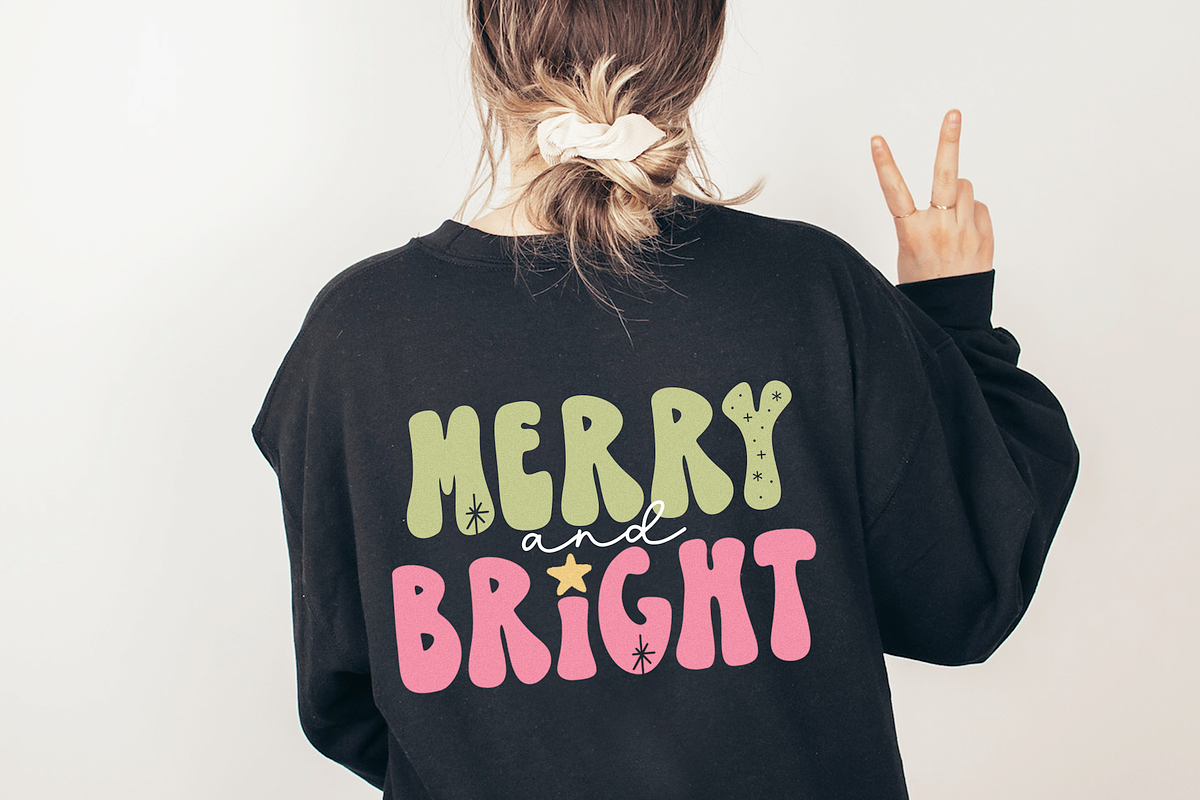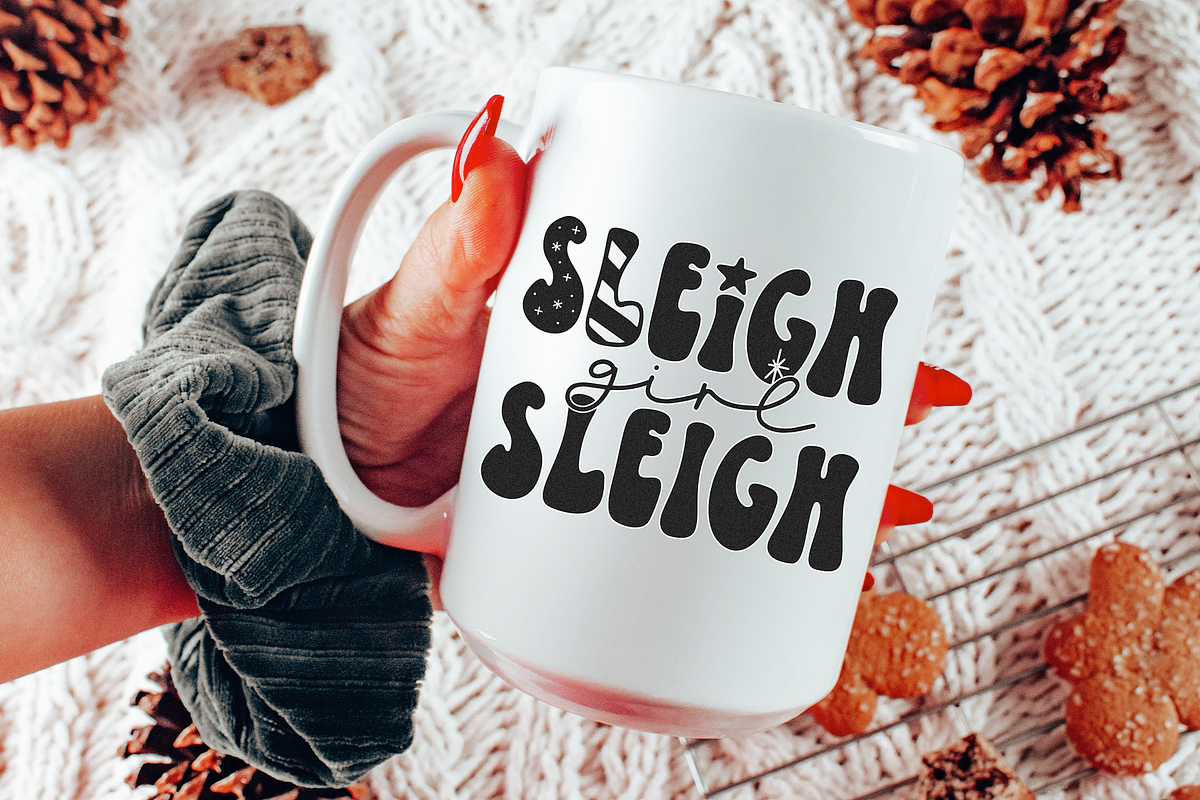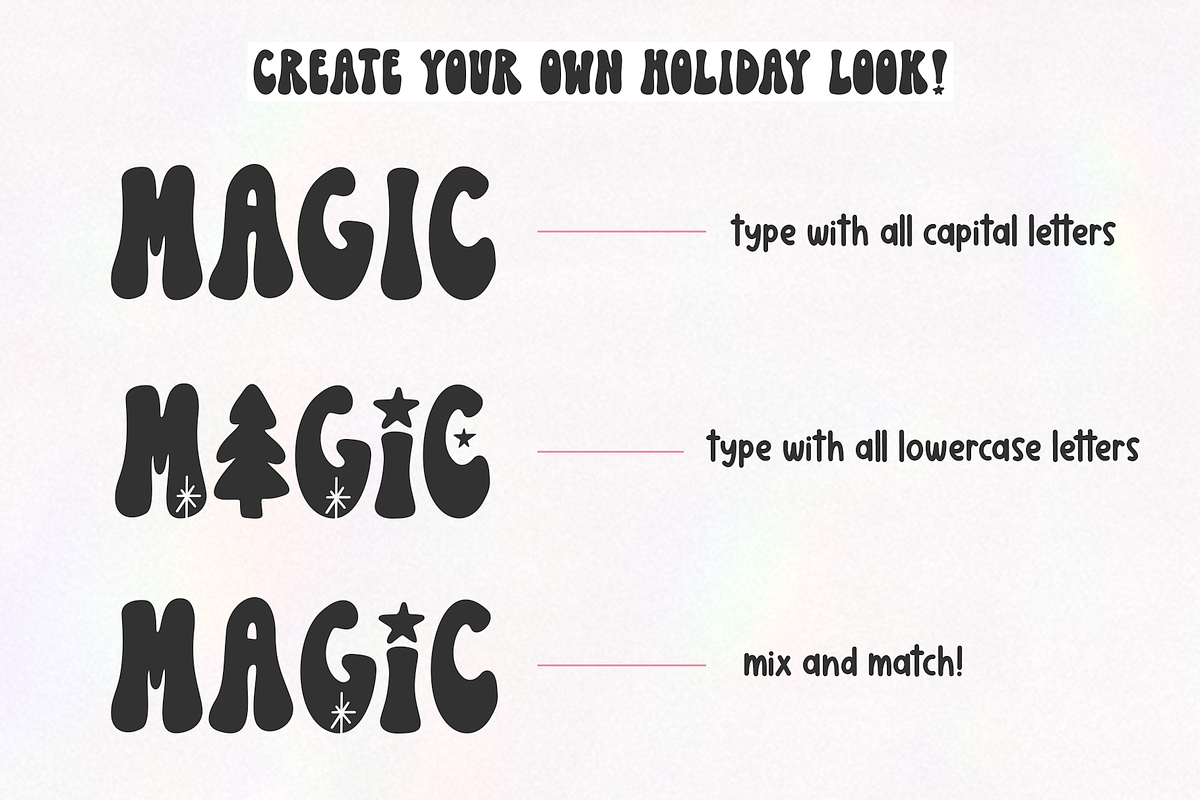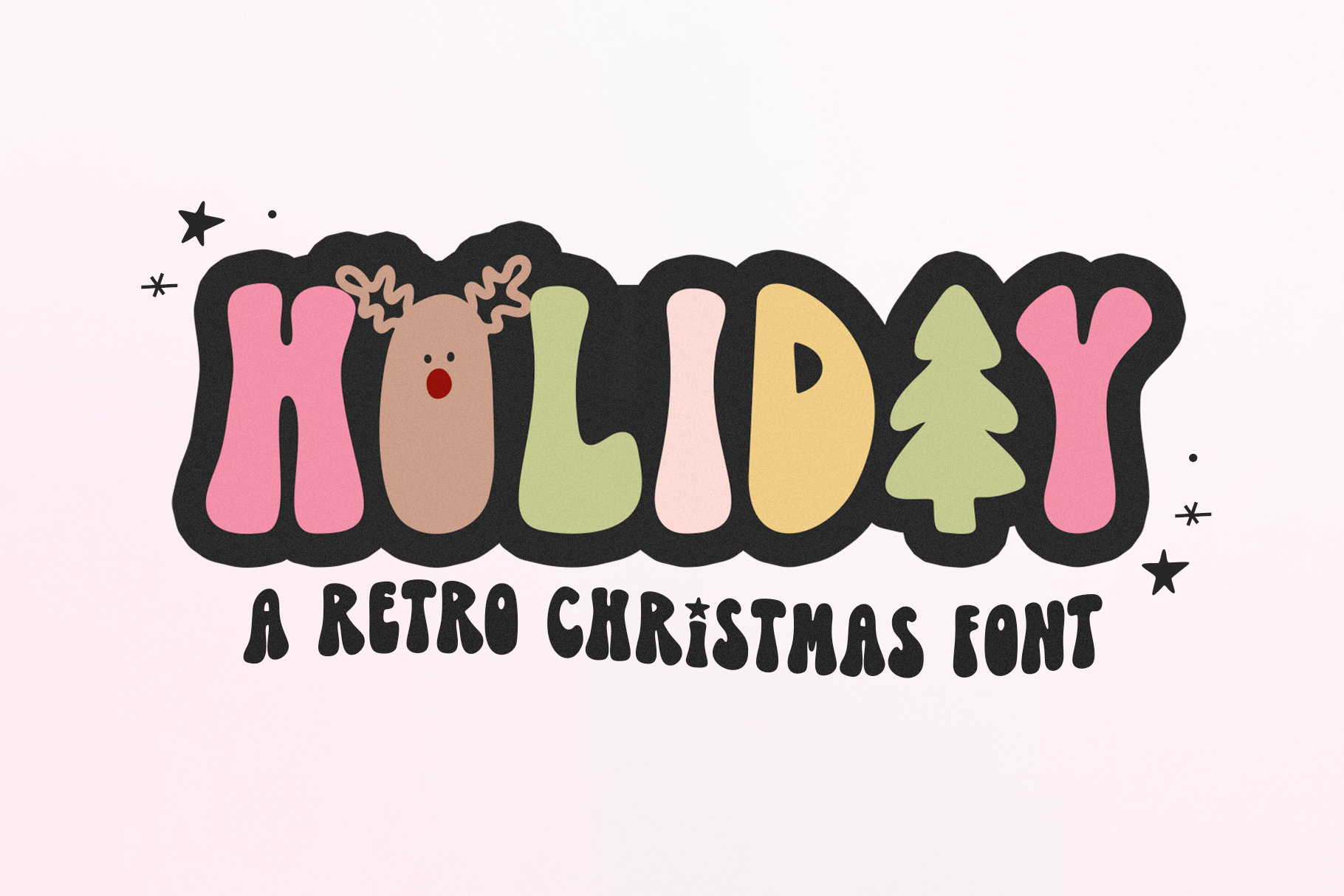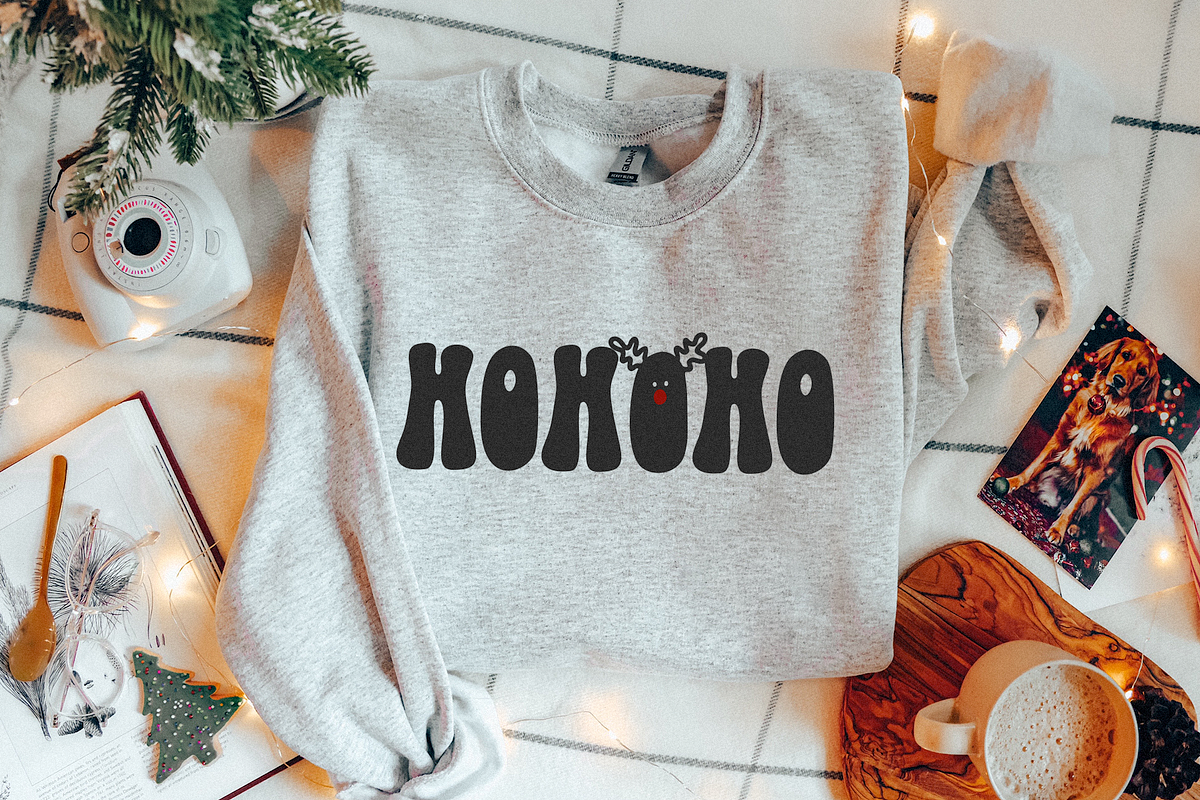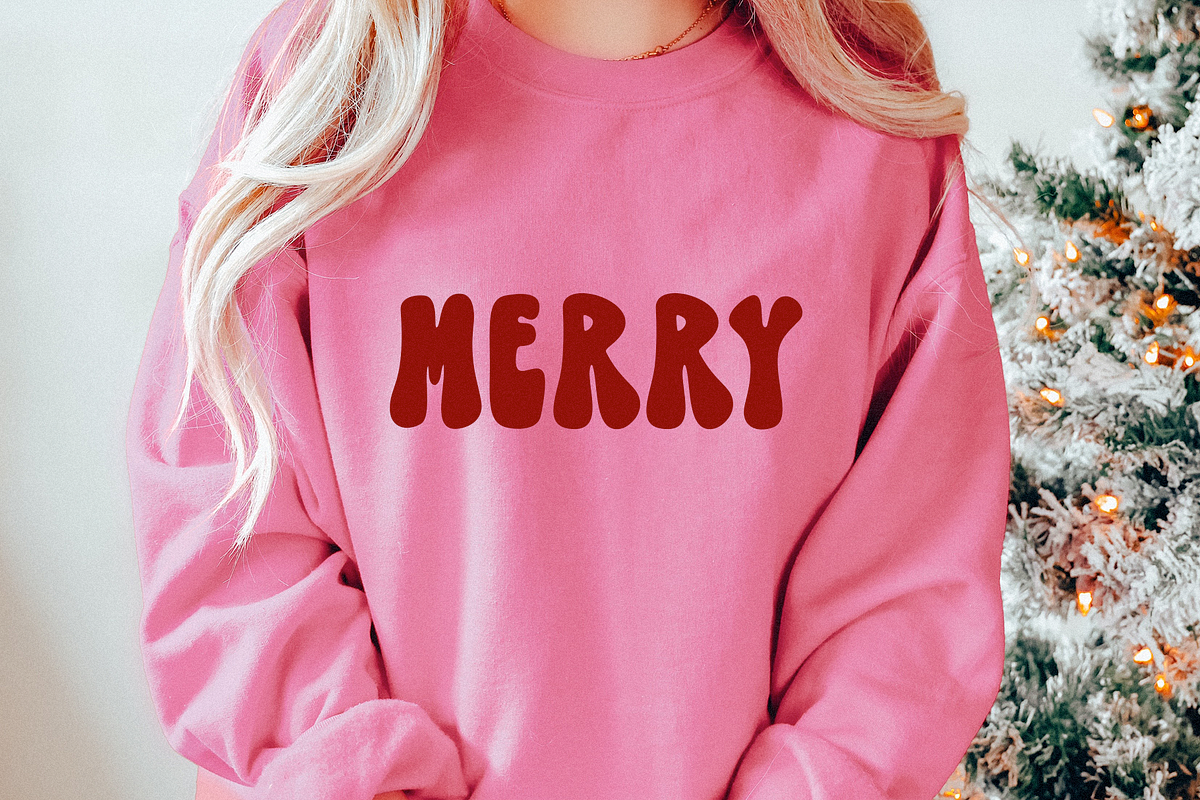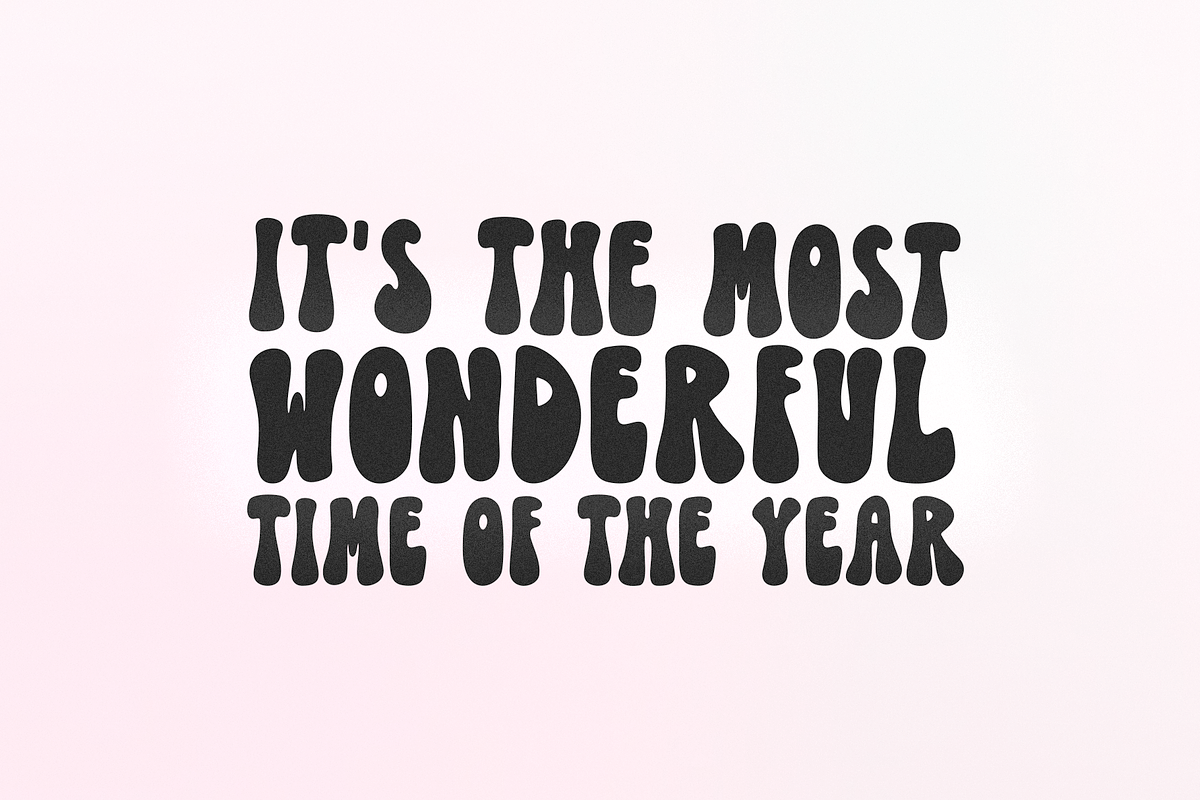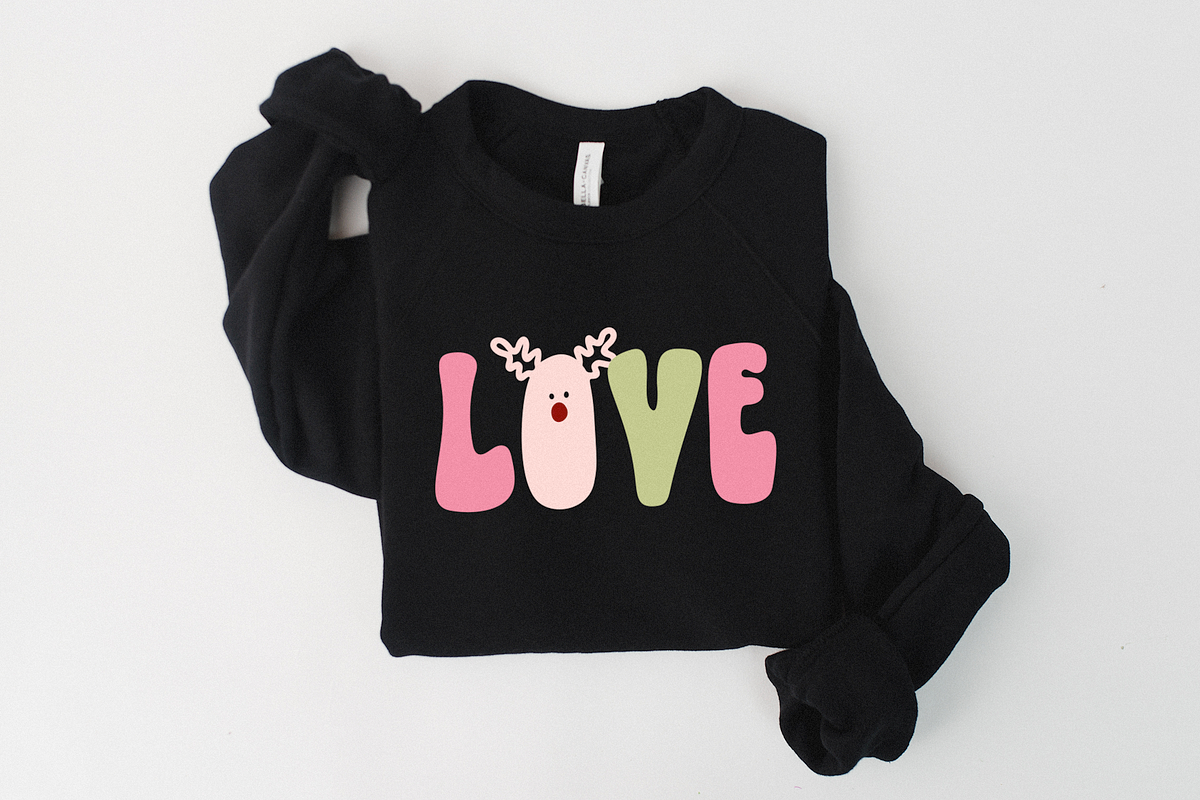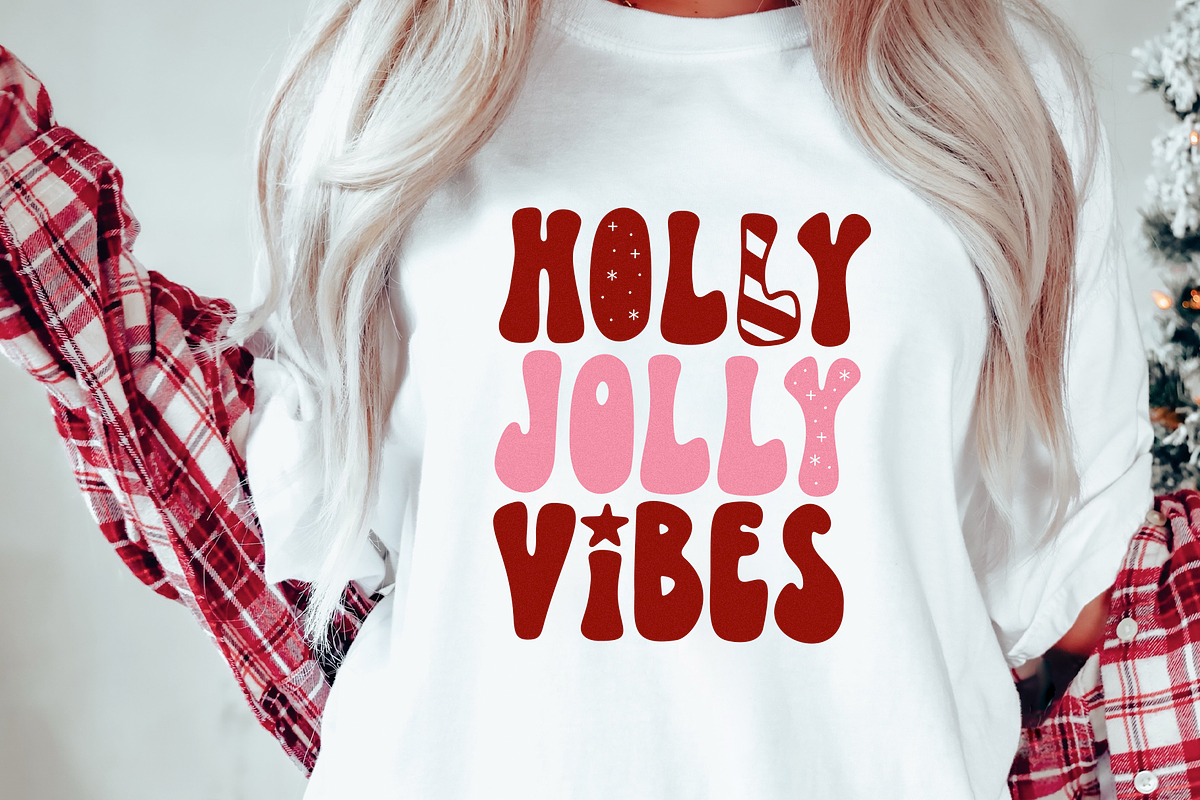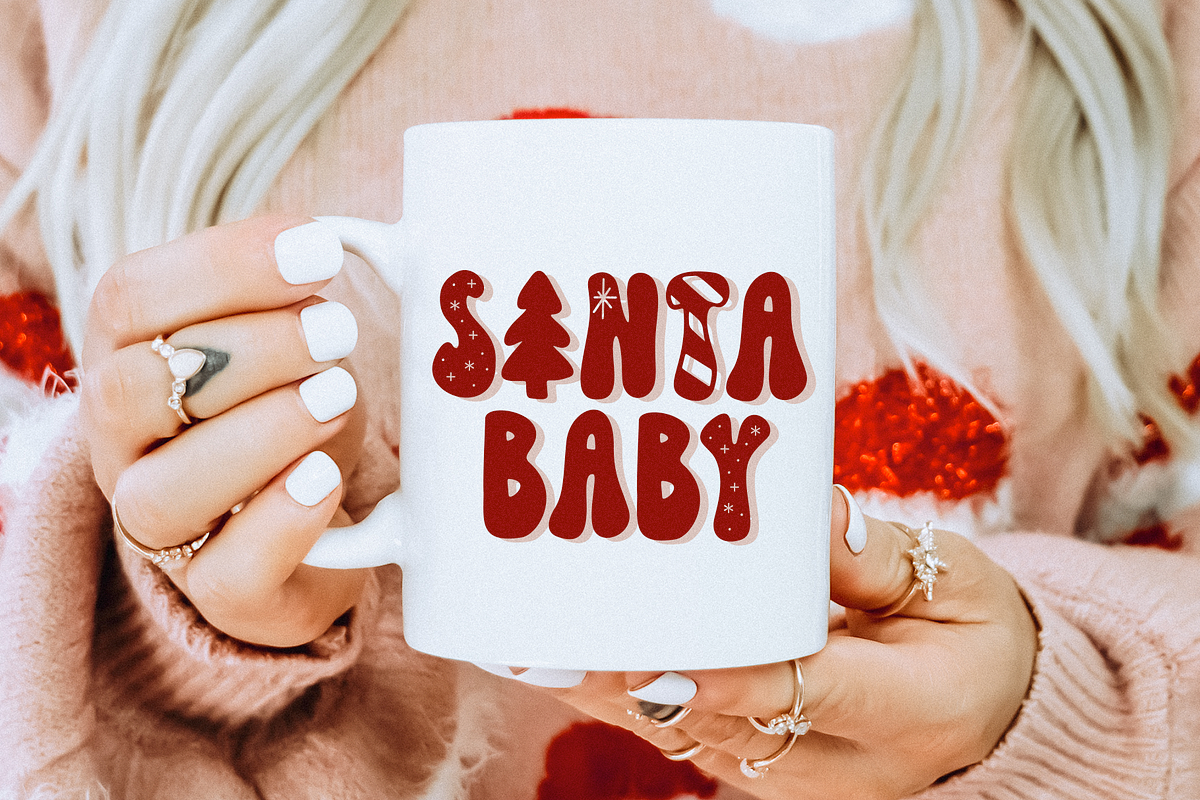
Holiday | Retro Christmas Font
Holiday Retro is a hand-drawn font perfect for all of your Christmas designs!
This font includes a basic set of A-Z retro letters and also a handful of fun Christmas themed letters. Switch between capital and lowercase to create your own unique look!
This is a single font file. There is no shadow font included. You can easily add that to your design in the program of your choice.
This is an ALL CAPS font.